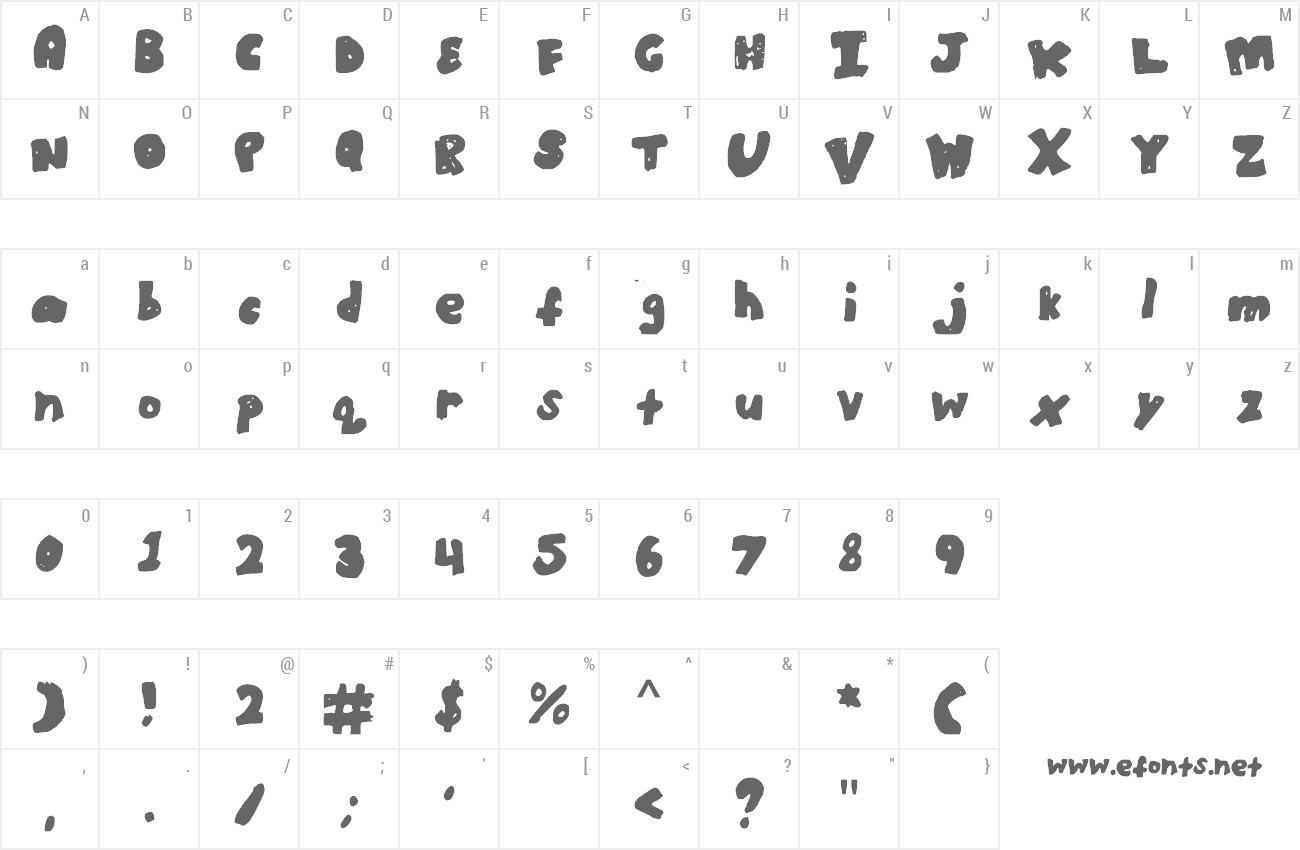
Preview and download Bold Bronzyne Font. Created by Bailey Pink in Fancy Cartoon styles with Free for personal use license.
| Font name: | Bold Bronzyne |
| Author: | Bailey Pink |
| Note by Bailey Pink | |
Handwritten, but decided that it is more...CARTOON Enjoy dancemommers/normal people!!! |